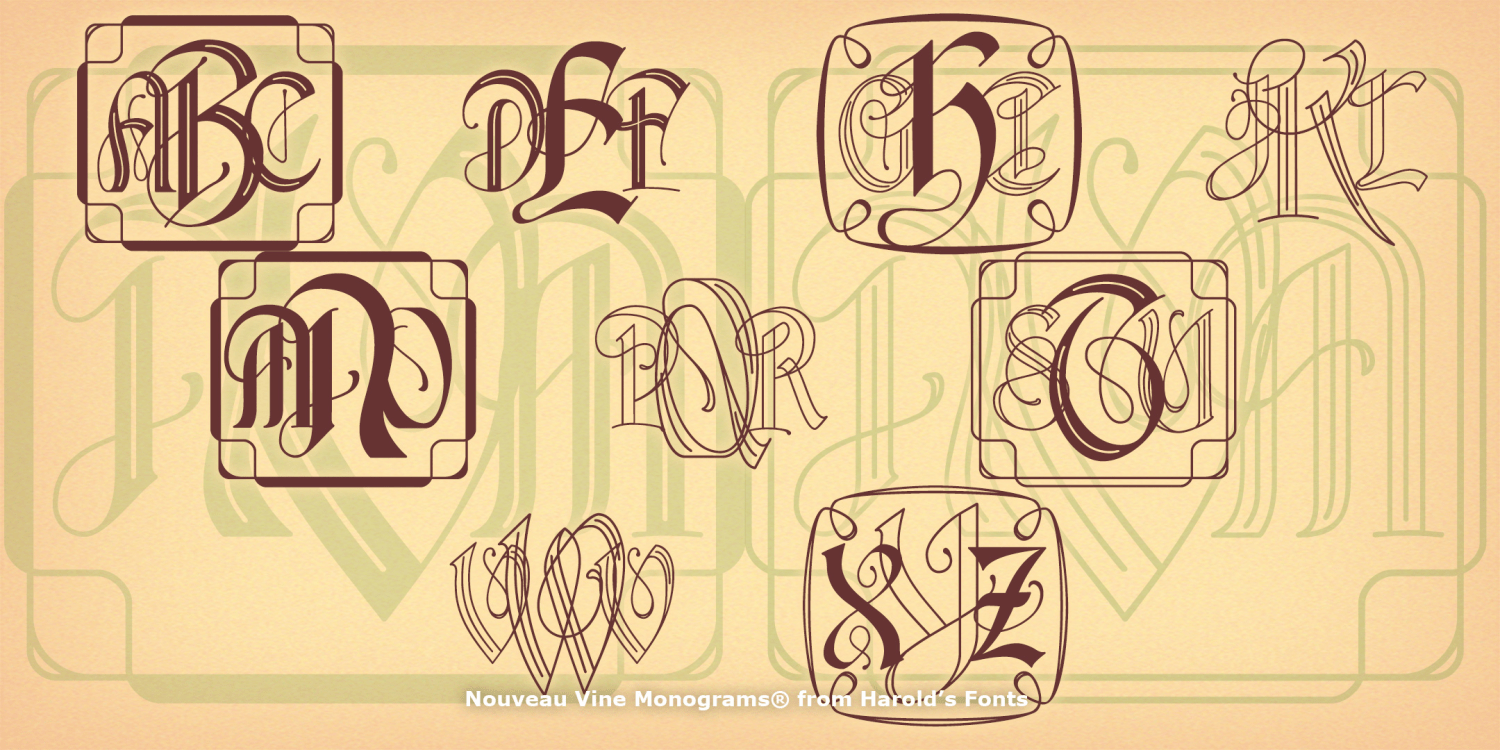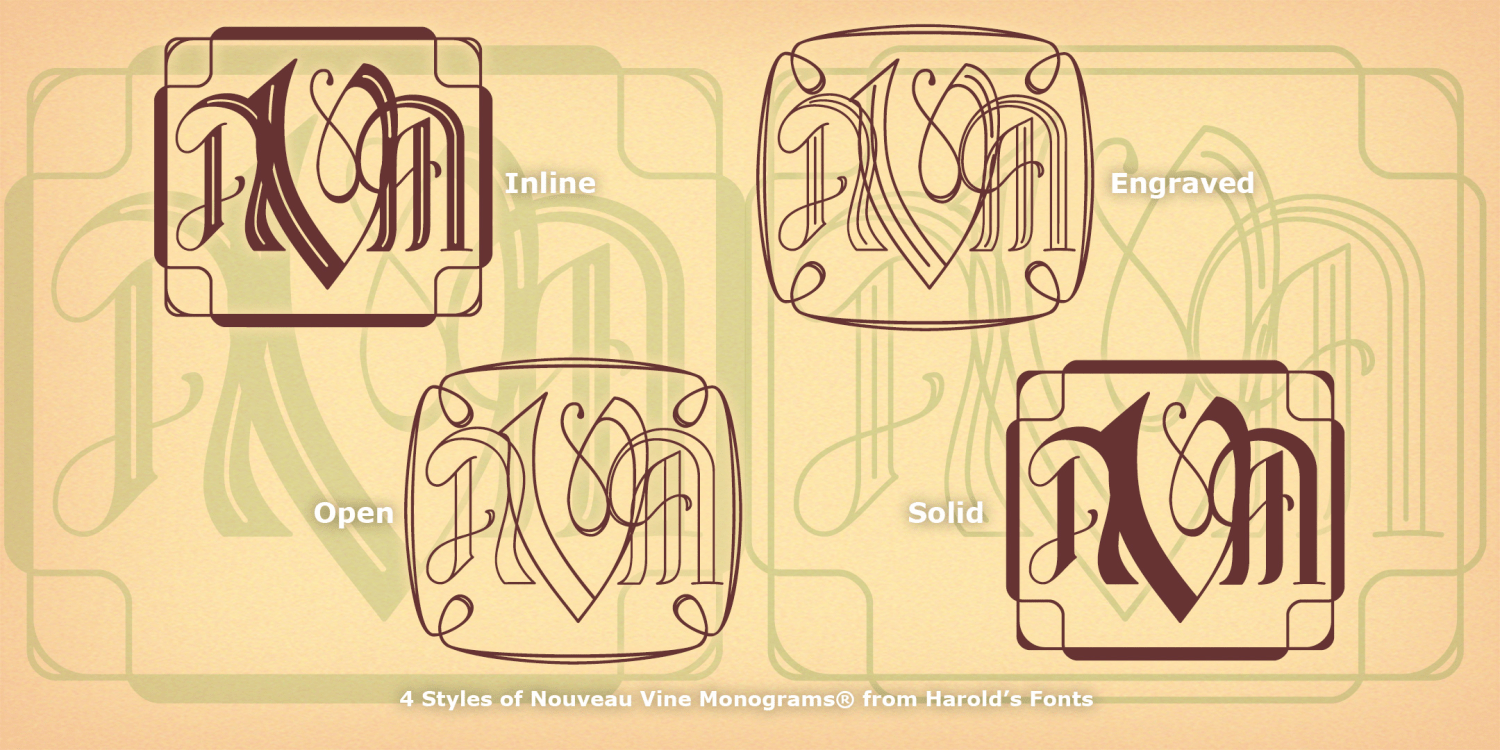
Nouveau Vine Monograms
A new branch of my popular Vine Monograms® family, Nouveau Vine Monograms® bring the beautiful, organic curves of Art Nouveau to any custom monogram. While inspired by classic designs of the period, these initials are all new and available in several styles—Solid, Outline, Inline, and Engraved—that can be mixed and matched for more effects. A choice of optional frames completes the look.